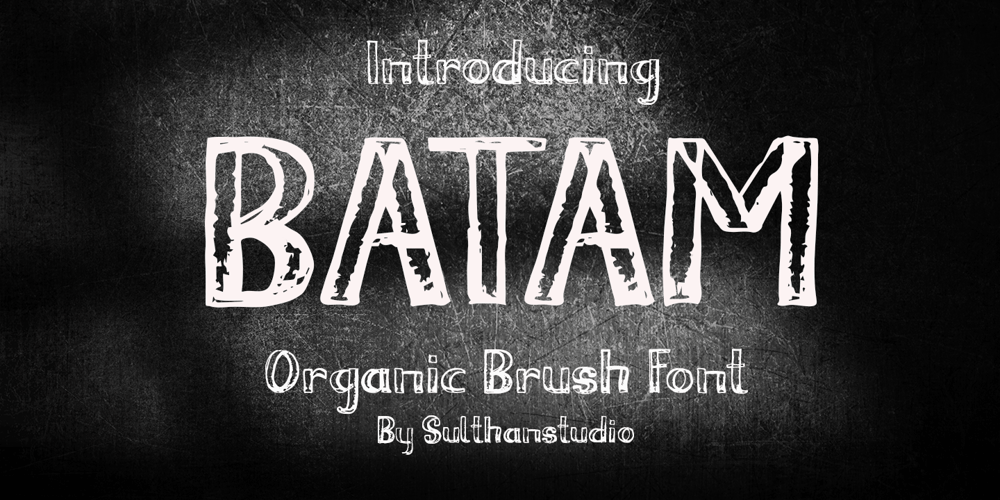
Batam Brush Font Family was designed by Nasrullah and published by Sulthan Studio. Batam Brush contains 1 styles and family package options. Batam brush – Is pure handwriting using a brush which we dipped in ink and then scratched on paper naturally and I made these letters as they are without being repaired in the slightest. this font looks like life in the harsh wilderness still has to survive.